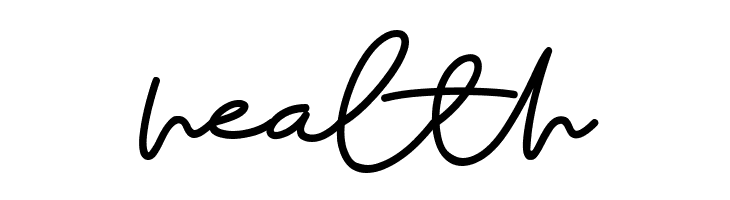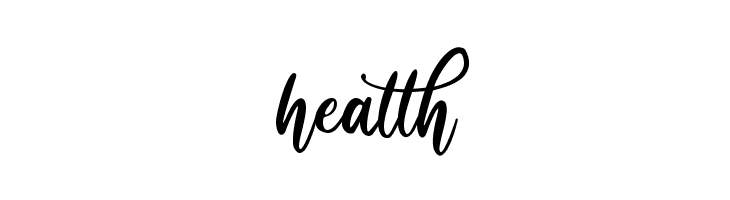
• all exes must die! Italic
A bold, angular, and italicized font with a dynamic, edgy style.
• All Hail Julia
A playful, handwritten font with fluid, interconnected strokes and a whimsical charm.
• All Over Again
A chaotic, hand-drawn font with a graffiti-like style.
• All Over Again All Caps
A bold, hand-drawn font with a sketch-like, dynamic appearance.
• All Pony
A bold, brush-style font with dynamic and expressive strokes.
• All Pony
A bold, brush-style font with dynamic, hand-drawn strokes.
• All Rejects
A rough, hand-drawn font with a playful and informal style.
• All rights reserved
A bold, distressed font with a cut-out, ransom note style.
• All Seeing Eye
A hand-drawn, playful font with irregular strokes and a vintage-modern blend.
• All Star Regular
Hand-drawn sneaker illustrations form each character.
• All The Mad Men
A bold, vintage-style decorative font with textured, three-dimensional characters.
• all used up
A distressed, vintage-style font with a bold, weathered appearance.
• All Yoko
A bold, brush-style font with dynamic, flowing strokes and artistic flair.
• AllabamaPersonalUse
An elegant, whimsical script font with flowing, interconnected strokes.
• Alladhina-Demo
A bold, dynamic script font with calligraphic influences and sharp edges.
• Allagia Demo